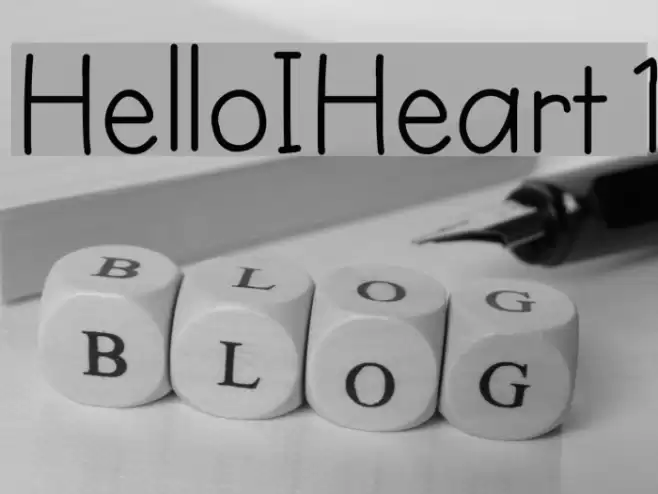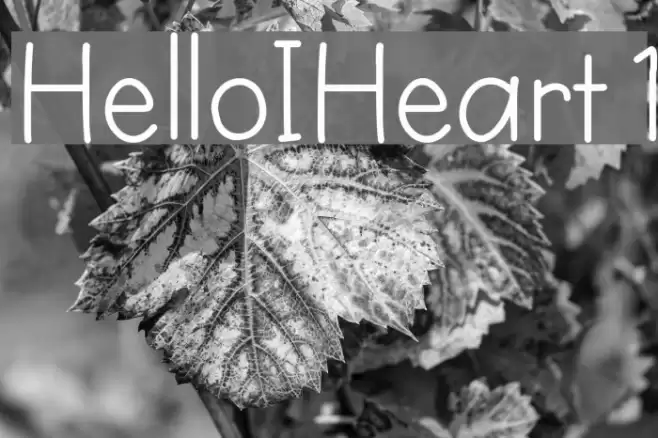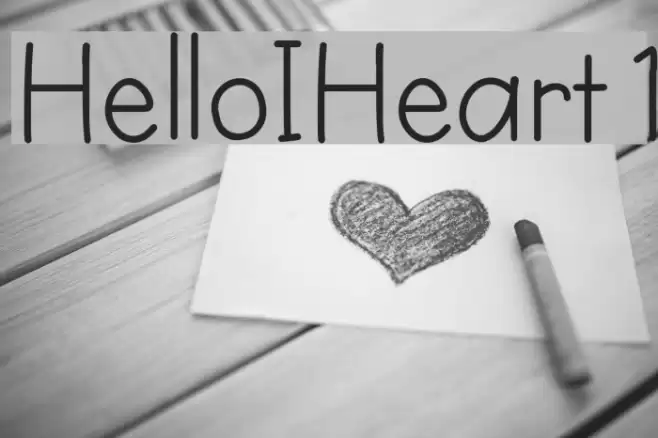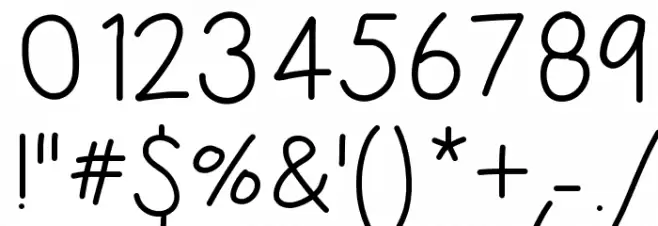
HelloIHeart1 Font
HelloIHeart1 Description
This font features a playful and casual handwritten style, characterized by its rounded and slightly irregular letterforms. The strokes are consistent in width, giving it a uniform appearance while maintaining a friendly and approachable feel. The characters are well-spaced, ensuring readability, and the overall design is simple yet charming. This font includes a full set of uppercase and lowercase letters, numerals, and a variety of special characters, making it versatile for different uses. Its informal style makes it suitable for projects that aim to convey warmth and personality.
A playful, handwritten font with rounded, consistent strokes from Handwritten fonts.
- Proposed Projects: Ideal for greeting cards, children's books, casual branding, and social media graphics.
- Overall Style: Casual
- Use Case: Headlines, Informal text, Branding